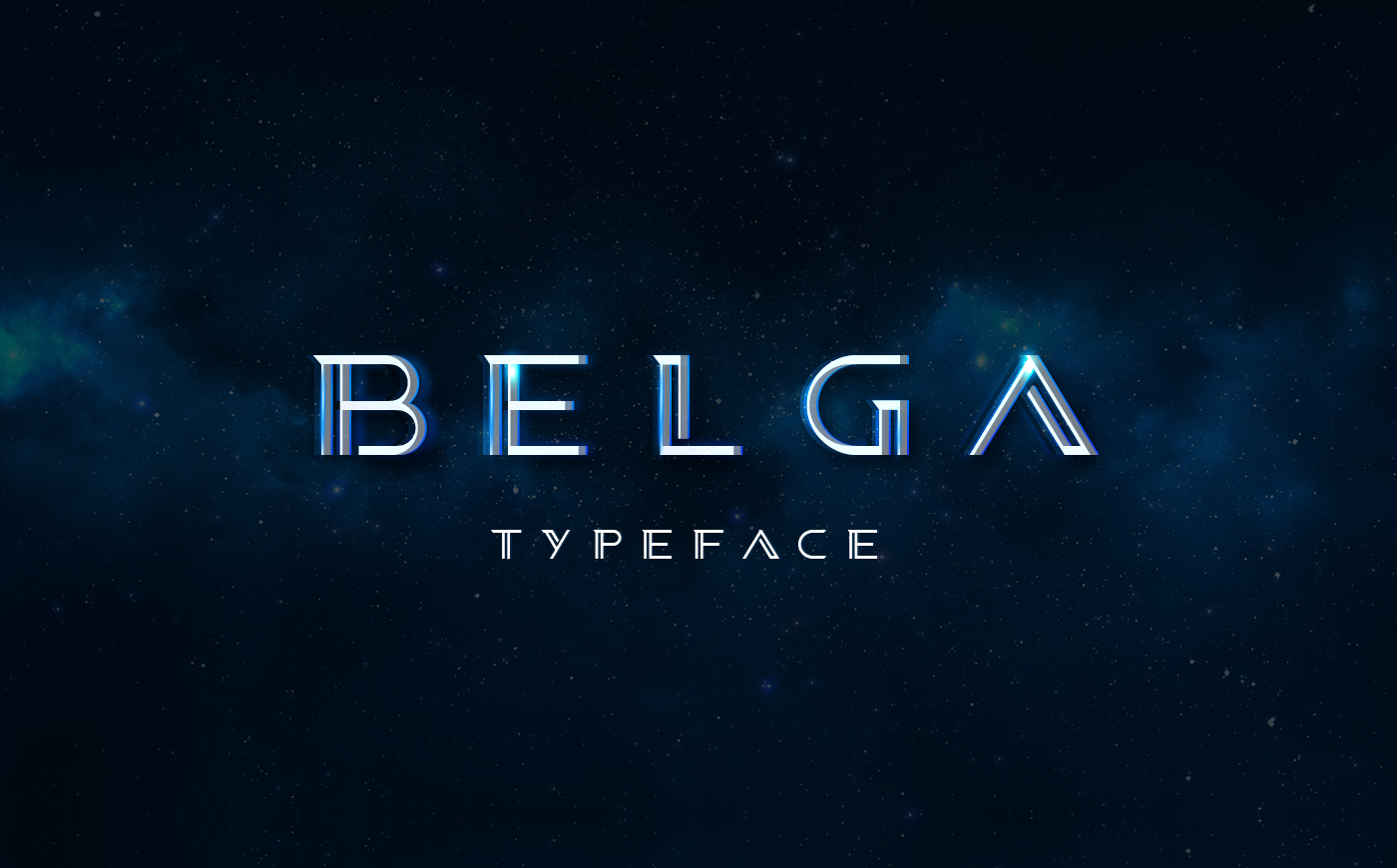
I am not a type designer. I create fonts only in order to incorporate them to my designs. "Belga" is an uppercase typeface. and is my first experimental font.